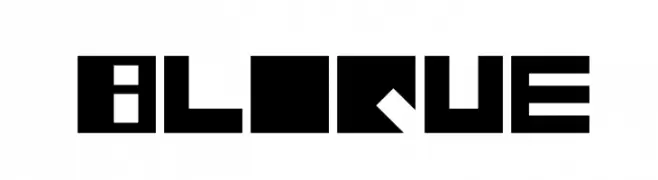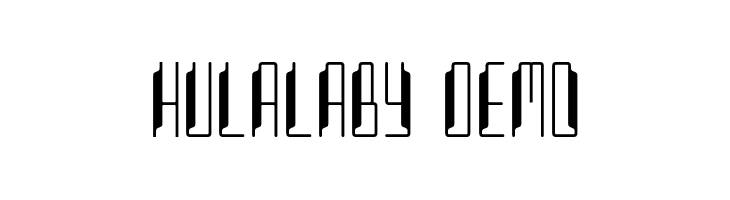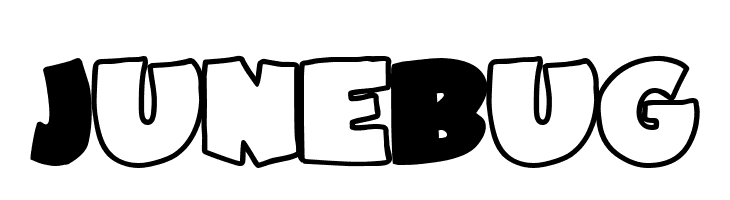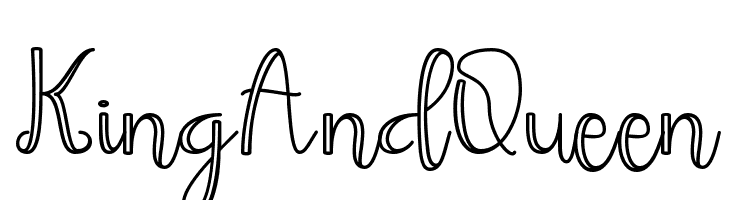
A playful, bold font with rounded, slightly irregular letterforms.
A whimsical and playful font with tall, narrow characters and dynamic stroke variations.
A playful and elegant script font with flowing cursive letterforms.
A bold, fluid script font with interconnected letters and a lively, handwritten style.
A bold, modern font with sharp edges and high contrast, perfect for headlines.
A geometric, hollow font with a futuristic and abstract design.
A bold, geometric font with a 3D effect and textured grid pattern.
A bold, flowing script font with a handwritten, elegant style.
A modern, italicized font with a sleek and dynamic style.
A bold, distressed font with a grunge texture and rugged appearance.